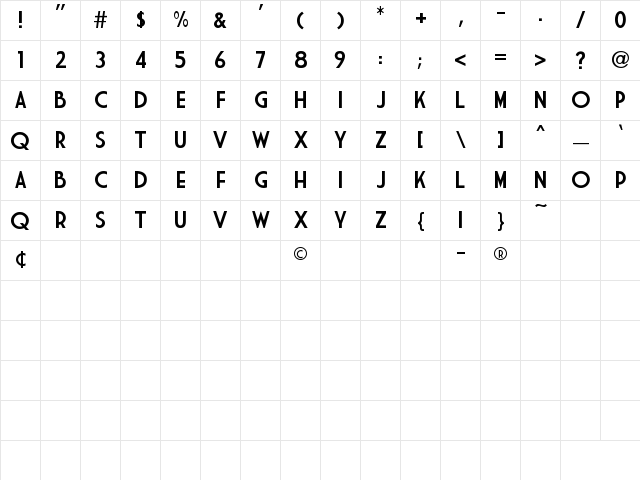
Market Deco Regular Font Preview
Market Deco Regular
Market Deco Regular Font Details
Design Context for Market Deco Typeface
Market Deco takes a measured approach to typography — its balanced proportions and neutral character make it a reliable workhorse for both digital and print work.